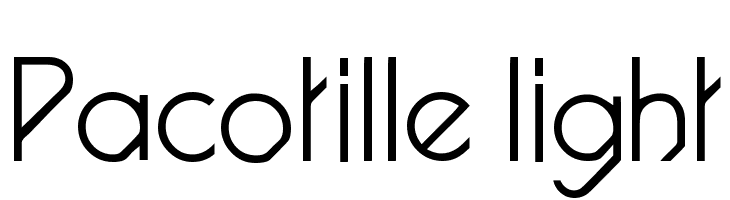
( Luc Mahler )
A modern, geometric font with a unique cut-out, stencil-like design.
( Luc Mahler )
A modern, italicized font with high contrast and sleek, elongated characters.
( Luc Mahler )
A modern, geometric font with narrow, elongated characters and sharp angles.
( Luc Mahler )
A sleek, narrow, and italicized font with a modern and elegant style.
( Luc Mahler )
A narrow, slanted font with a modern and decorative style.
( Luc Mahler )
A geometric, modern font with clean lines and sharp angles.
( Luc Mahler )
A bold, geometric font with a modern, futuristic style.
( Luc Mahler )
A bold, italicized, and narrow font with a dynamic and modern style.
( Luc Mahler )
A modern, slanted script font with elegant curves and sharp angles.
( Luc Mahler )
A modern, narrow font with angular and geometric design elements.